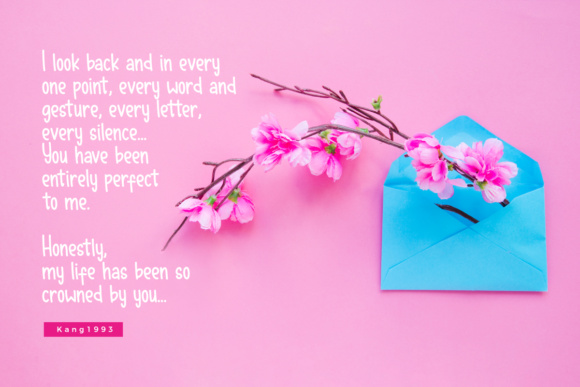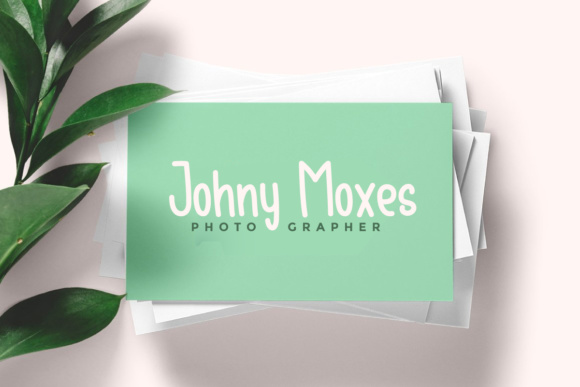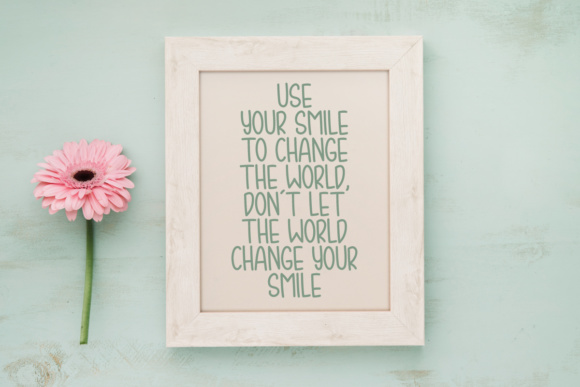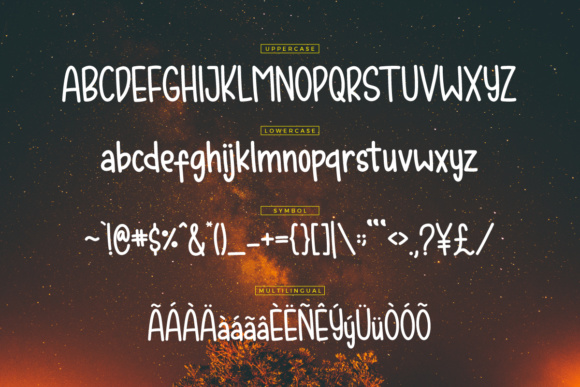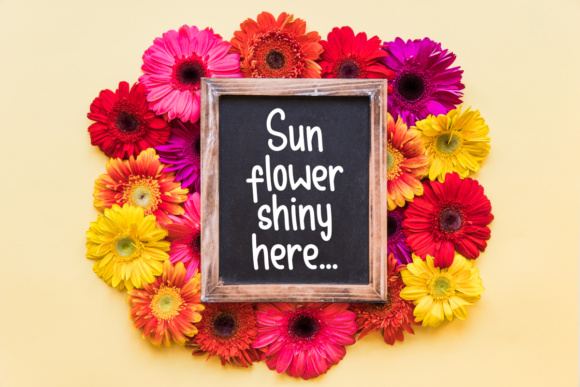
Happy Ending Font
About Happy Ending Font
Happy Ending is a neat handwritten typeface with a fresh style.
It’s very legible, making it great for packaging, display, banners, and much more.